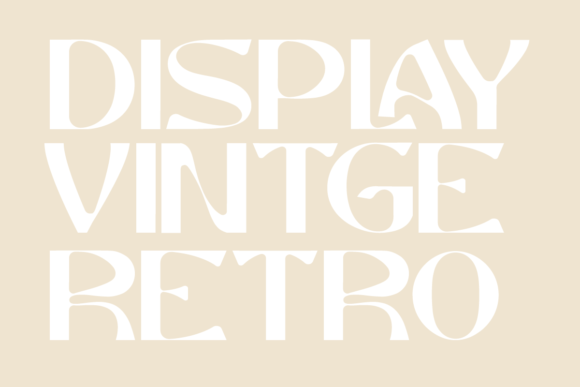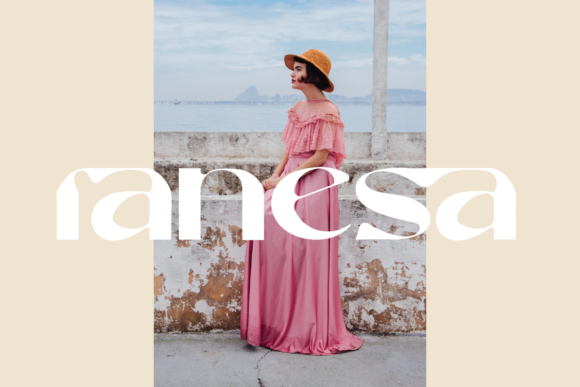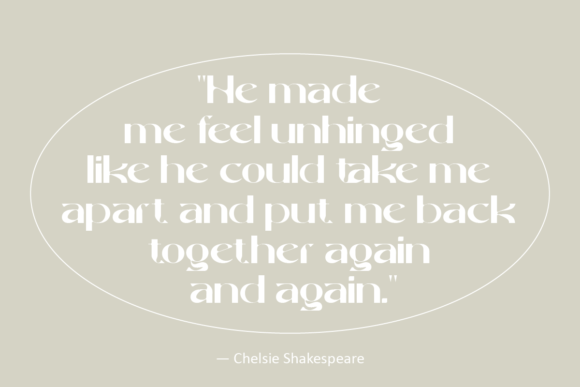
Introduction to Graela Font
Graela is a cool, wavy and stylish display font.
It is PUA encoded which means you can access all glyphs and swashes with ease Use this font for your designs and explore its endless possibilities.
Key Features of Graela Font